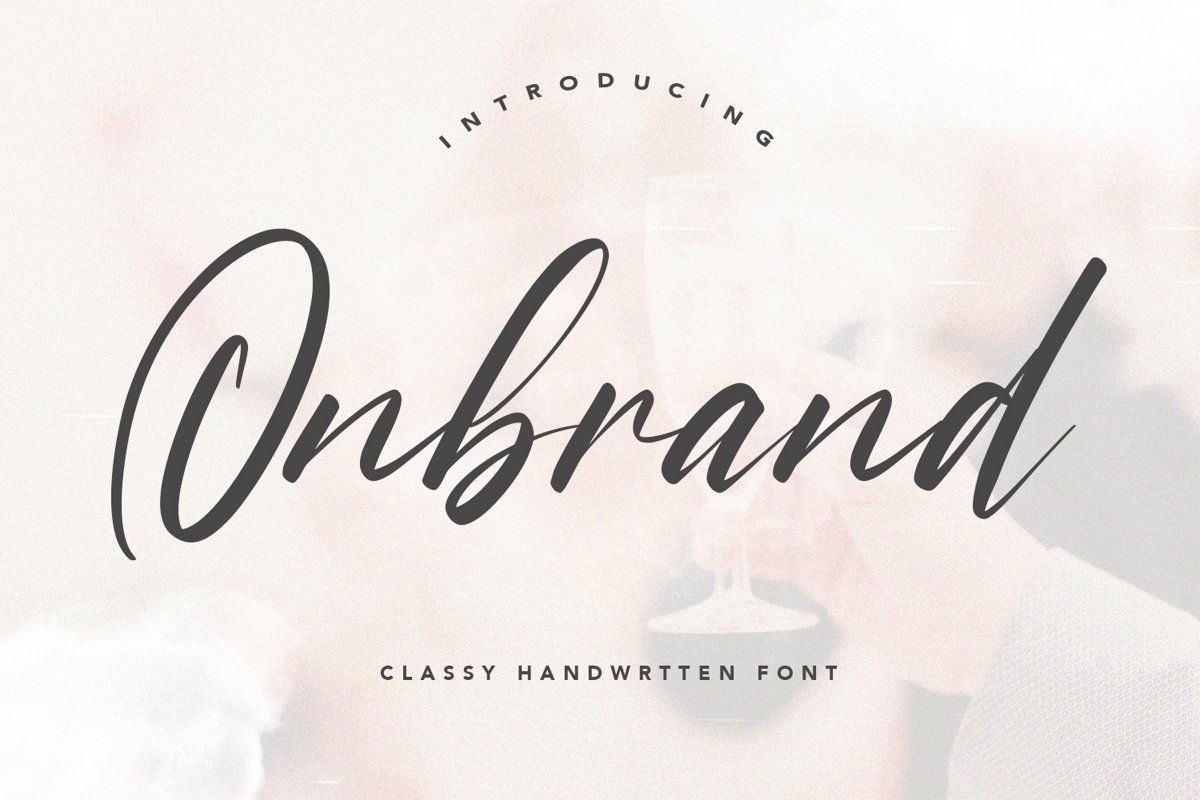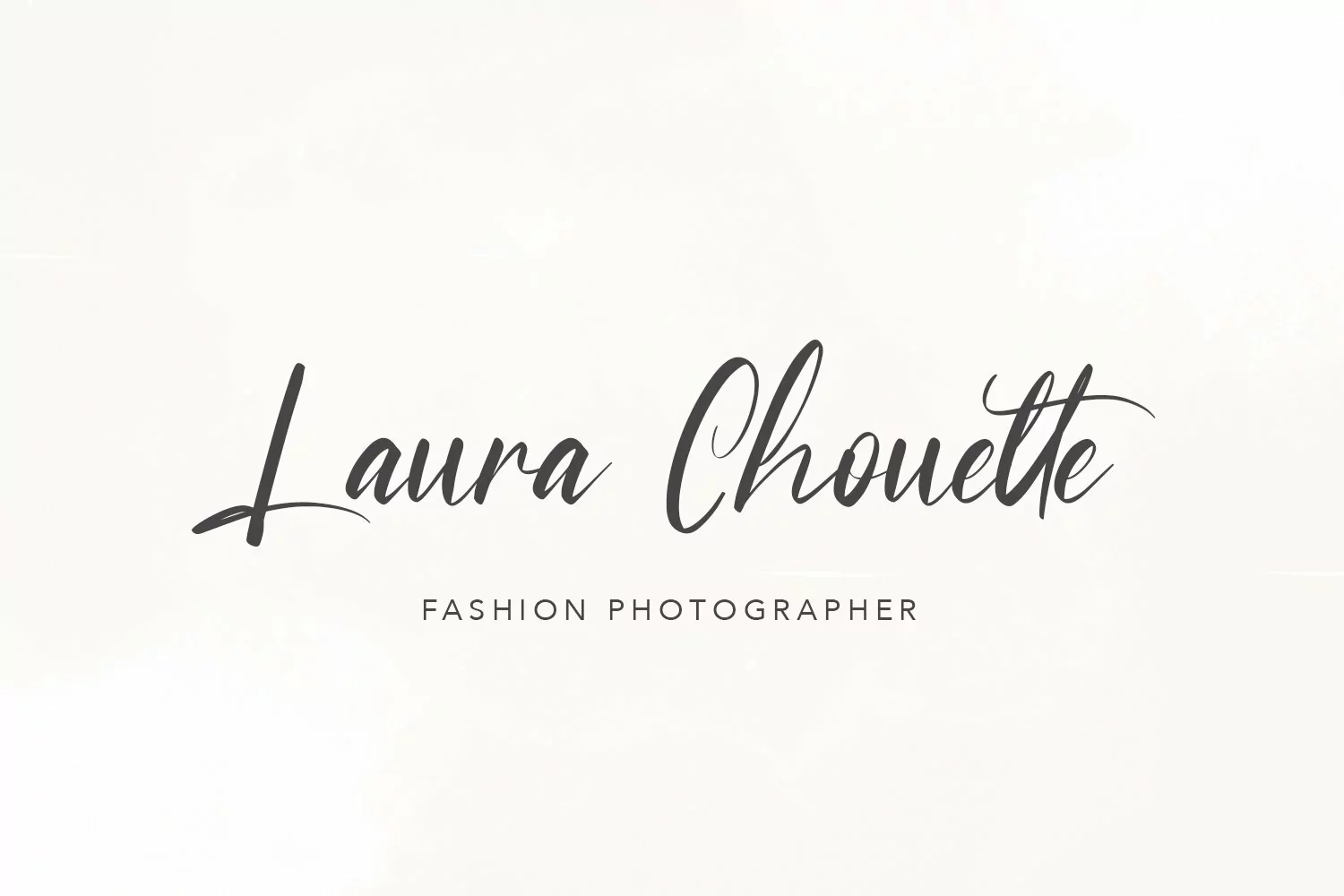
Onbrand - Script Fonts that contain lowercase, uppercase, symbol, and also support multi language. There’s a lot ligatures in this font. This Font also comes with ligatures, alternates and many more. this font suitable for fashion, branding, catalog and other design what you want.
Onbrand